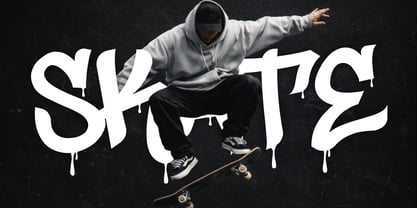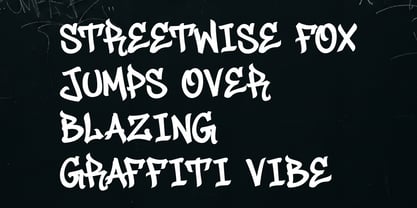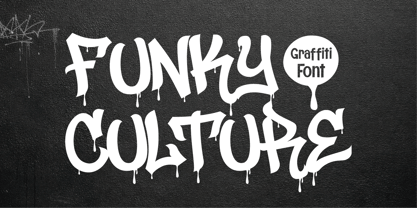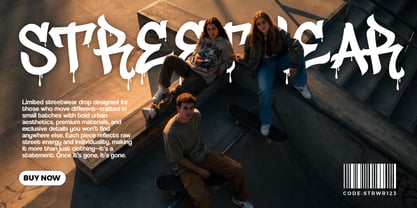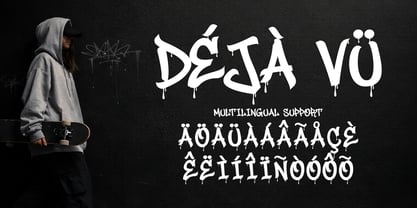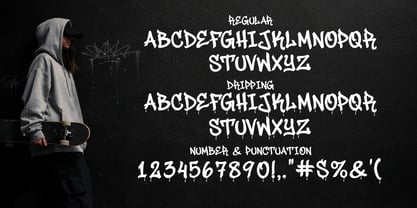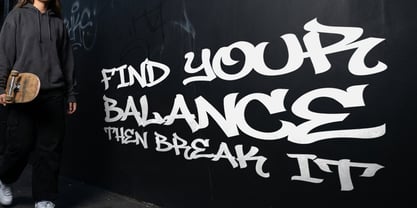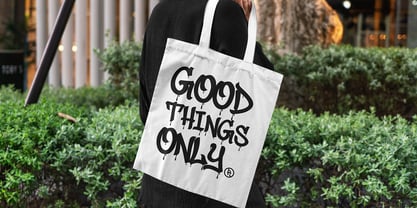
Funky Culture
by Sipanji21
The Funky Culture Font Family was designed by Sipanji and published by Sipanji21. Funky Culture contains 2 styles and family package options. More about this family
Funky Culture is a bold display typeface that captures the raw energy of urban street culture and transforms it into a powerful design tool. Inspired by graffiti art, streetwear aesthetics, and modern creative expression, this font delivers a strong visual presence that stands out in any context. The defining feature of Funky Culture is its dual-style system: Regular and Dripping. The Regular style offers solid and structured letterforms that maintain clarity and readability, while the Dripping style introduces expressive paint-like details that add movement and artistic flair. This combination allows designers to explore different visual directions within a single typeface. Funky Culture includes uppercase characters, designed with bold proportions and dynamic shapes. These letterforms are crafted to command attention and create strong visual impact. The font also includes numbers and punctuation, ensuring full functionality for various design applications. With multilingual support, Funky Culture can be used across different languages, making it suitable for global projects. This expands its usability for branding, marketing, and digital content. This font excels in projects that require bold and expressive typography. It is ideal for streetwear branding, posters, album covers, gaming graphics, social media content, and merchandise design. Its strong personality makes it especially effective for youth-oriented and trend-driven visuals. The dripping style adds a unique visual layer, creating a sense of motion and authenticity. It mimics the look of fresh paint, giving designs a raw and artistic feel. This makes Funky Culture particularly appealing for graffiti-inspired and edgy design concepts. From a design perspective, Funky Culture works well as a focal point. Its bold shapes naturally draw attention, making it perfect for headlines and key messaging. Designers can pair it with minimal fonts to create contrast and balance. Technically, the font is optimized for both print and digital use. Its vector-based structure ensures high-quality output across different formats and sizes. Funky Culture is more than just a font—it is a creative expression of urban identity. It allows designers to create work that feels bold, energetic, and visually impactful.